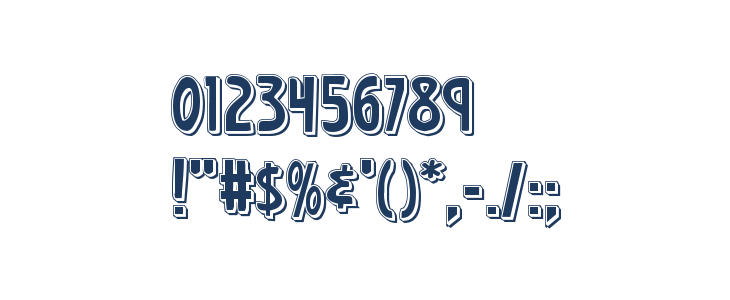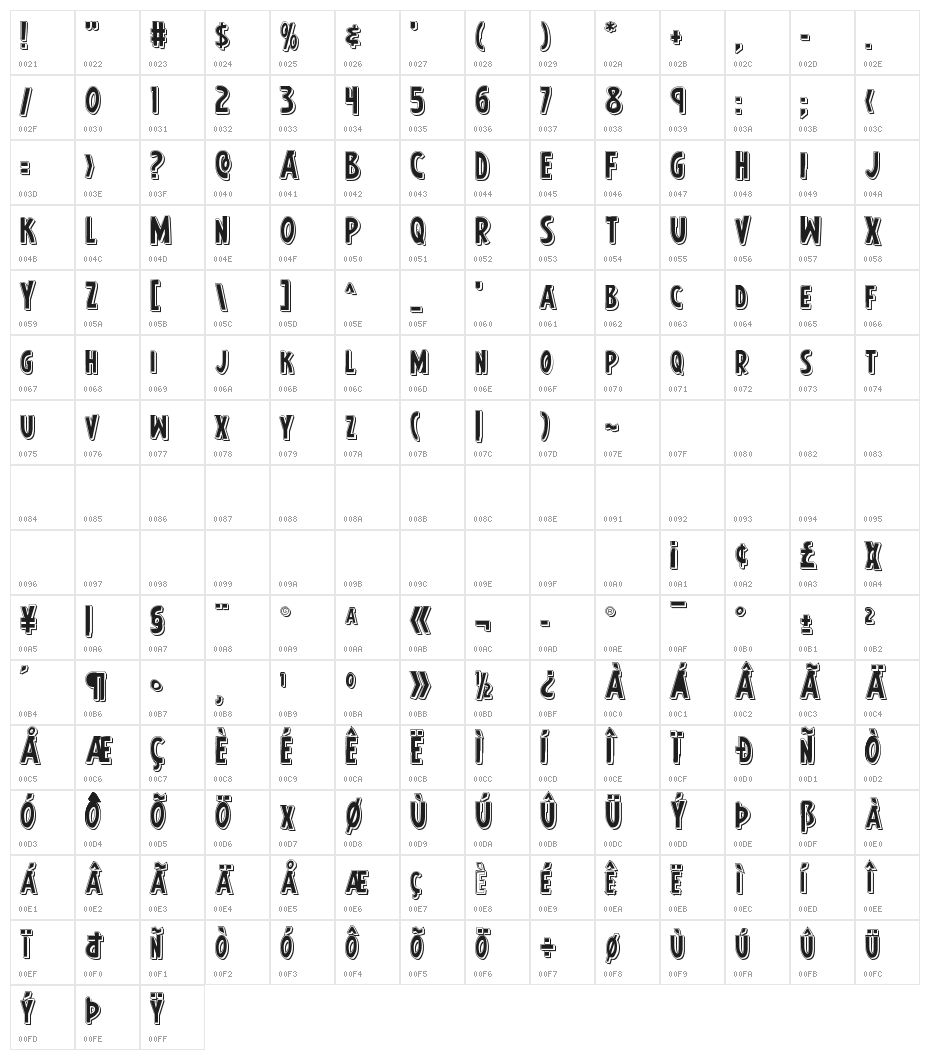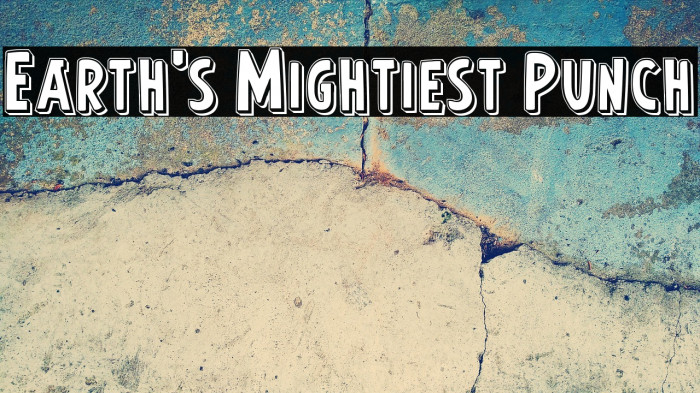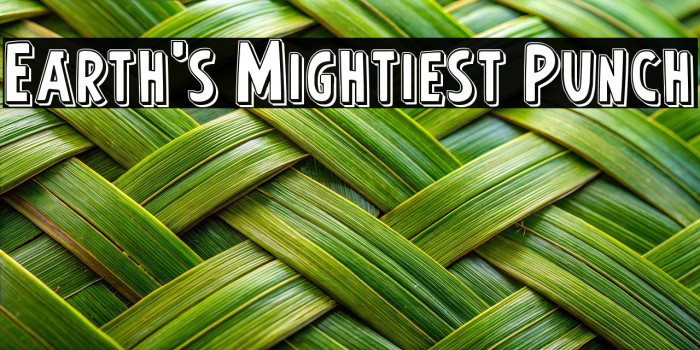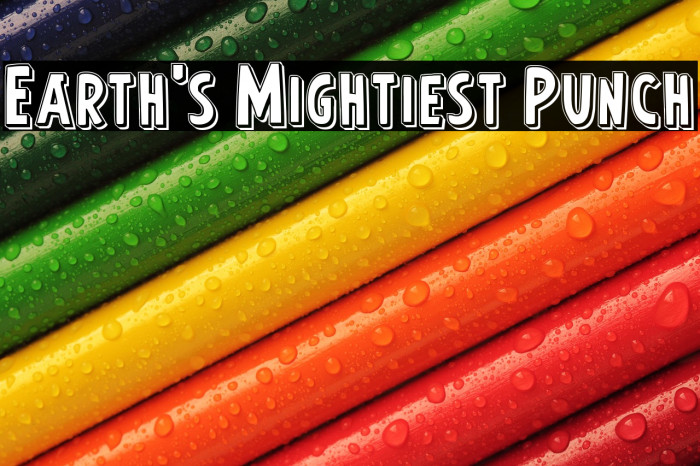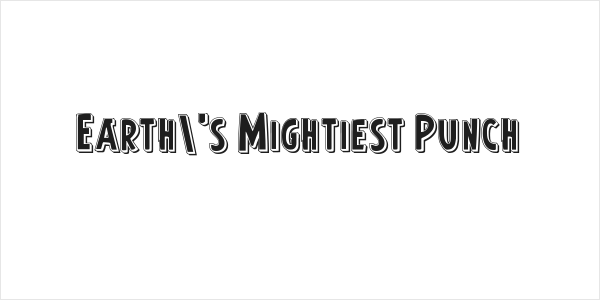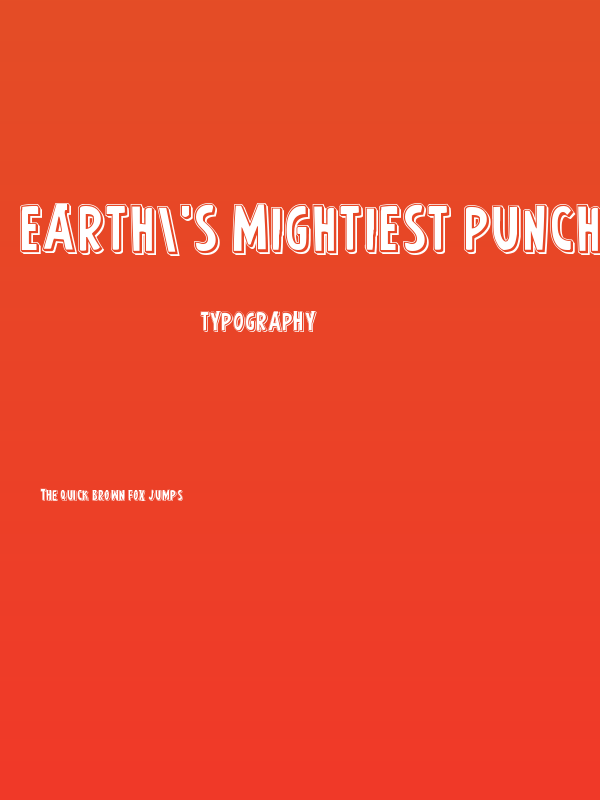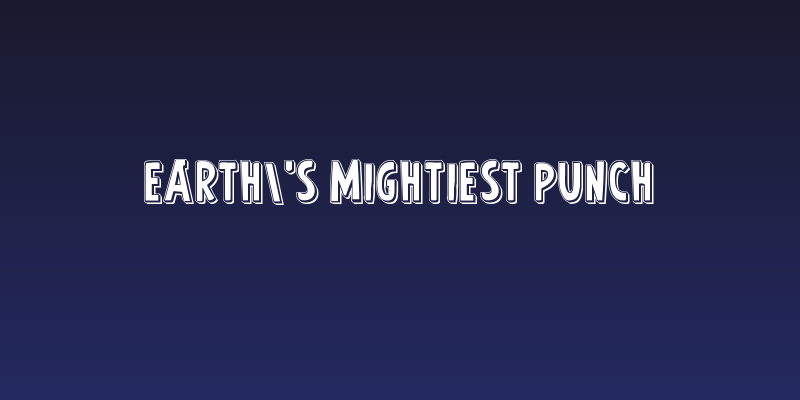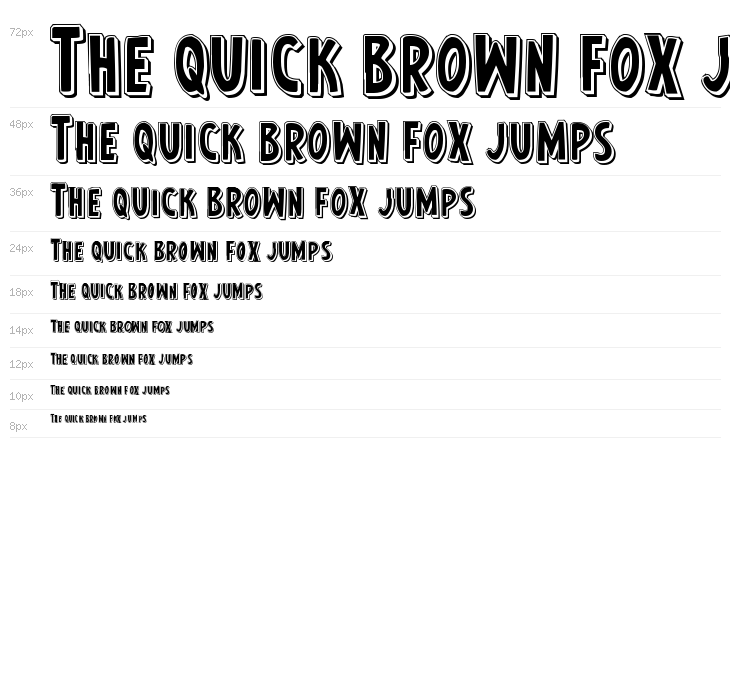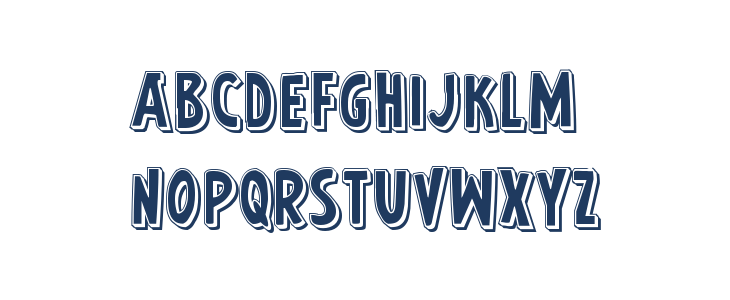
Earth's Mightiest Punch Font
Earth's Mightiest Punch Description
This font features bold, uppercase and lowercase letters with a strong, impactful presence. The characters are outlined with a thick black border, giving them a three-dimensional effect. The style is playful yet assertive, making it suitable for attention-grabbing designs. The numbers and special characters follow the same bold and outlined style, ensuring consistency across all glyphs. The font's design is reminiscent of comic book lettering, with a modern twist that adds a unique flair to any project.
| Proposed Projects | Ideal for comic book covers, posters, video game titles, and any project requiring a bold, eye-catching font. |